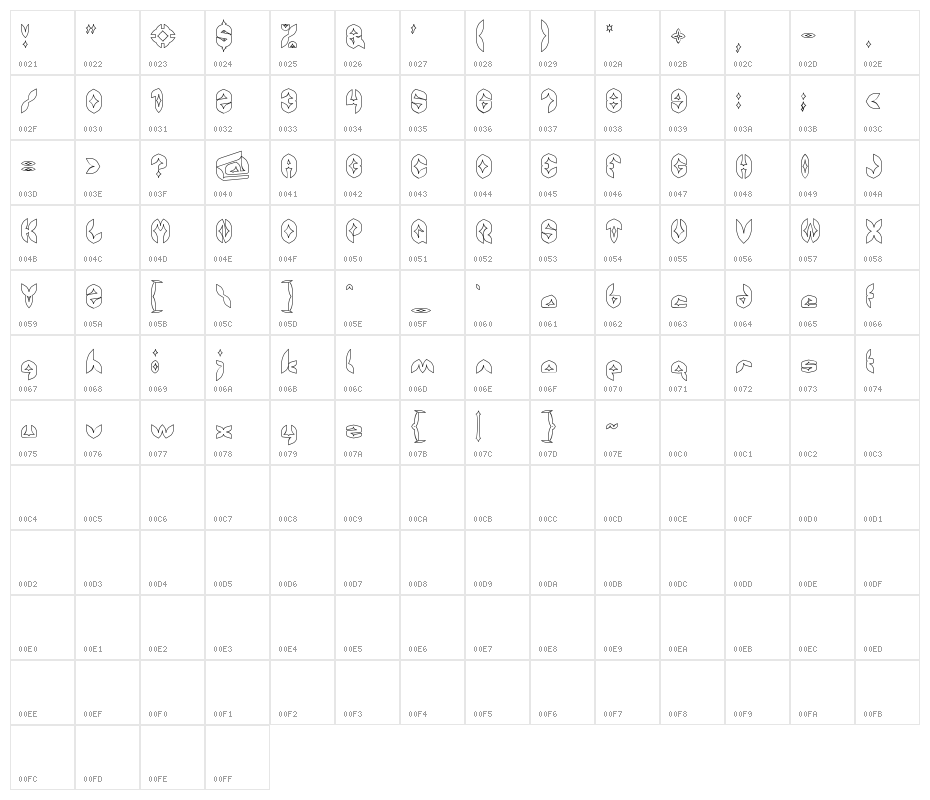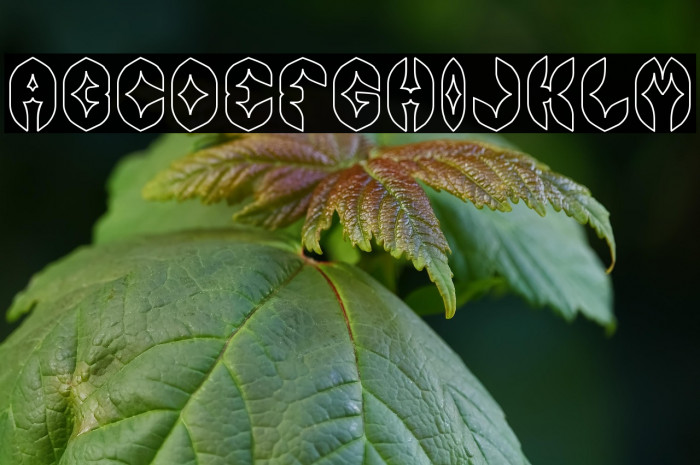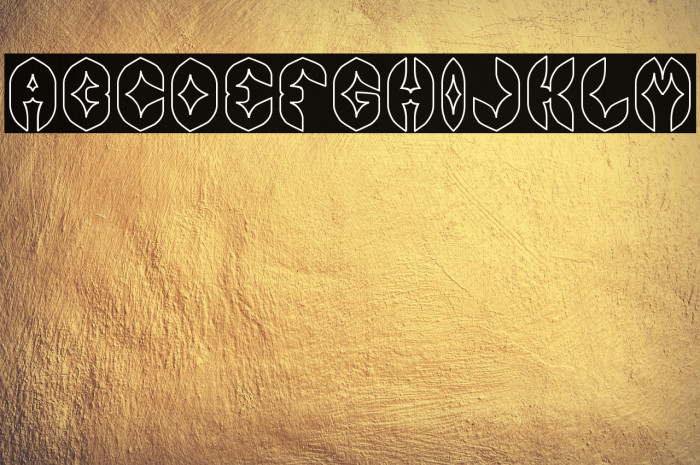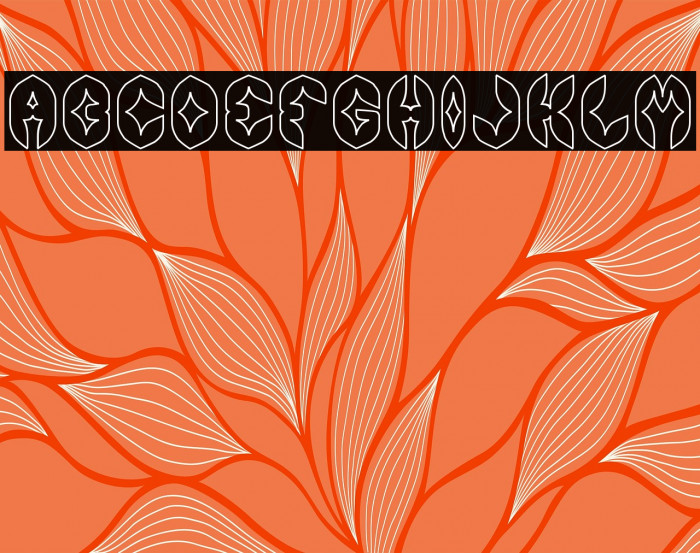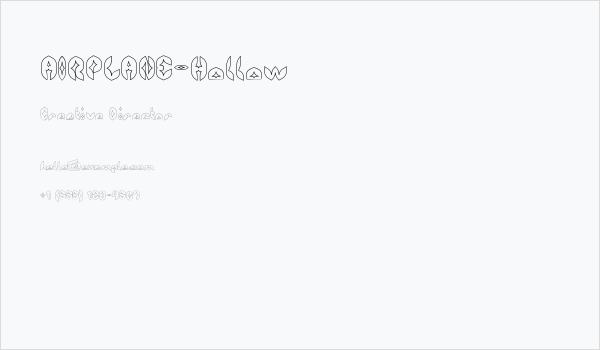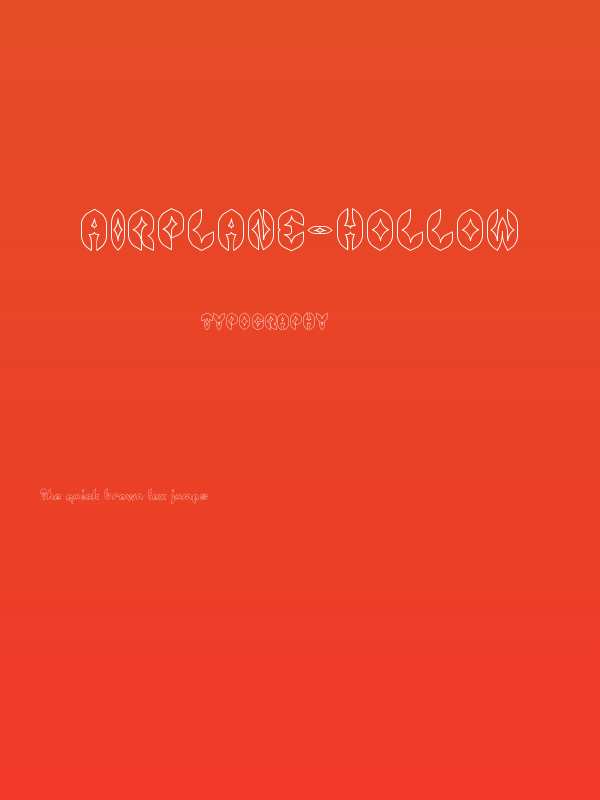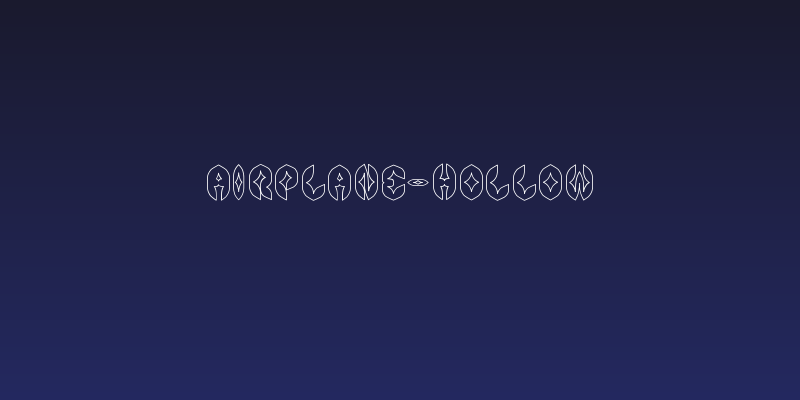
AIRPLANE-Hollow Font
AIRPLANE-Hollow Description
This font features a unique, hollow design with geometric shapes and angular lines, giving it a futuristic and abstract appearance. The uppercase and lowercase letters are distinct, with sharp edges and a consistent hollow center that creates a striking visual effect. The numbers and special characters follow the same design principles, ensuring uniformity across the entire character set. This font's style is bold and eye-catching, making it suitable for projects that require a modern and unconventional look.
| Proposed Projects | Ideal for sci-fi themed posters, video game titles, modern art projects, and innovative branding materials. |